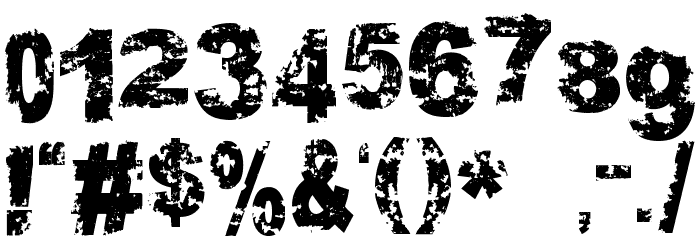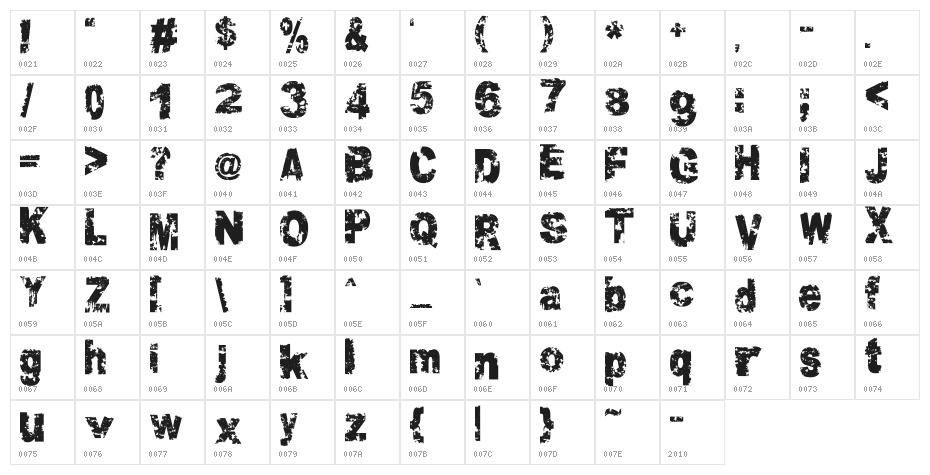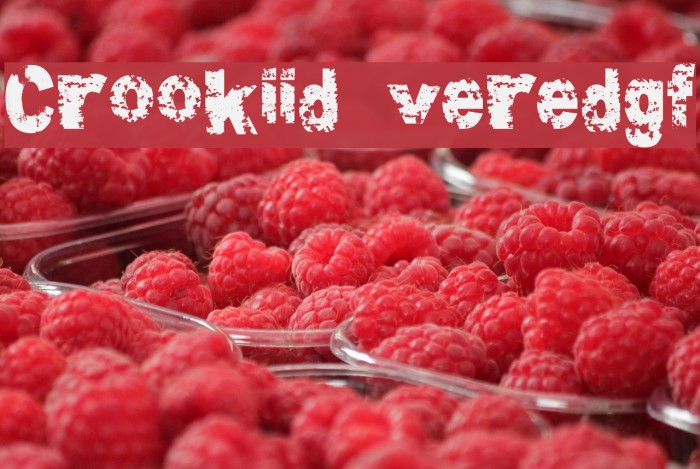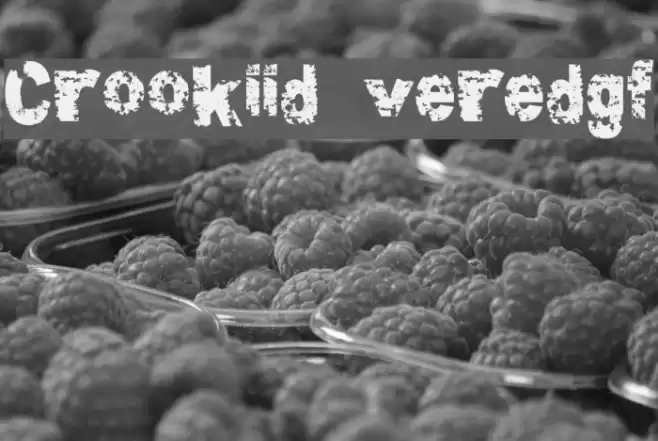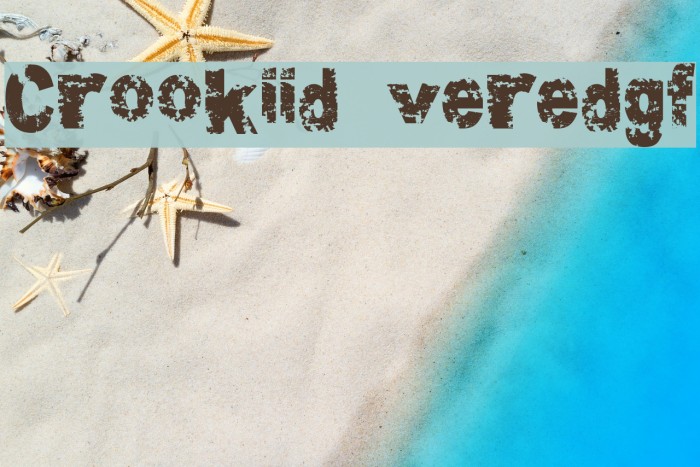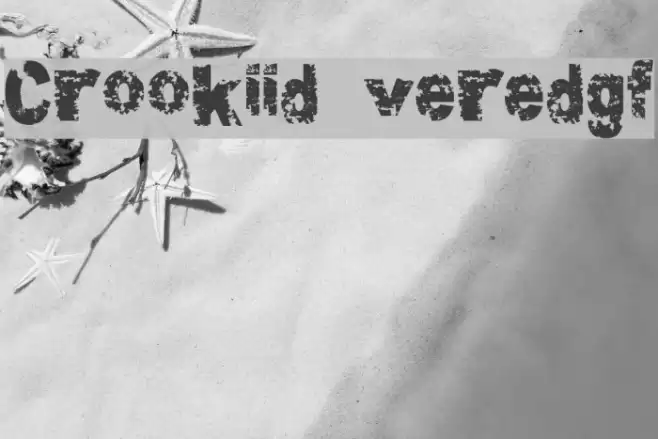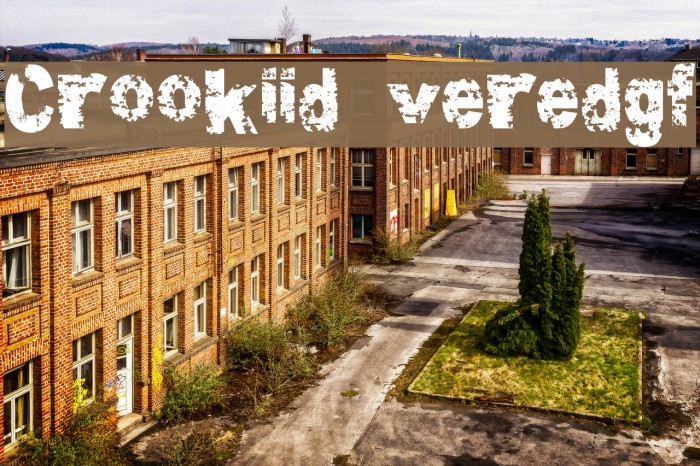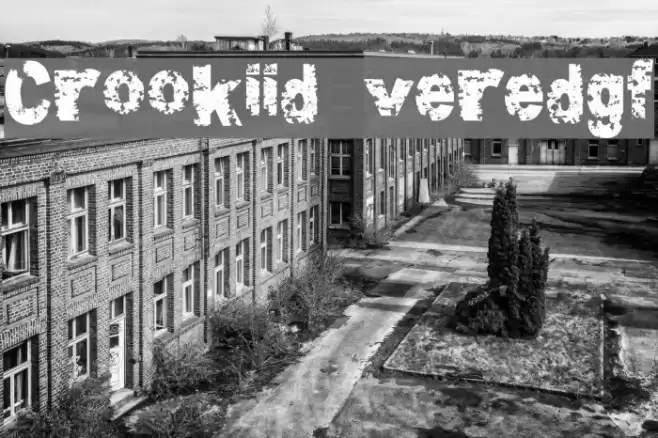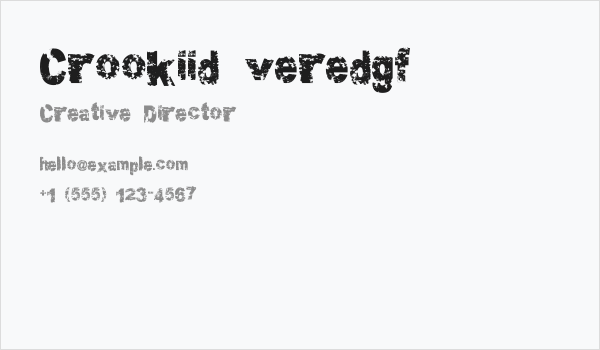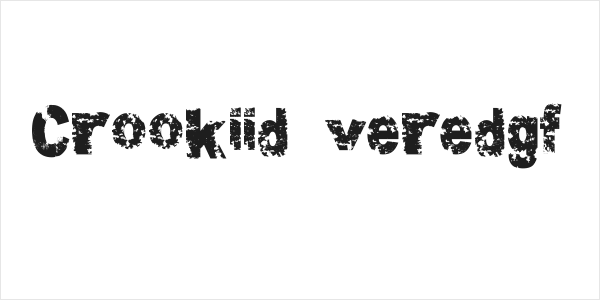
Crookiid veredgf Font
Crookiid veredgf Description
This font features a distressed, grunge style with a bold and rugged appearance. The characters are heavily textured, giving them a worn and weathered look, reminiscent of aged or eroded surfaces. The uppercase and lowercase letters maintain a consistent style, with each character appearing as if it has been chipped away or distressed over time. The numbers and special characters follow the same aesthetic, ensuring a cohesive look across all elements. This font is ideal for projects that require a raw, edgy feel, such as music album covers, posters, or any design that aims to convey a sense of rebellion or nonconformity.
| Overall Style | Grunge, Edgy, Distressed |
| Proposed Projects | Ideal for music album covers, edgy posters, rebellious branding, and urban-themed designs. |